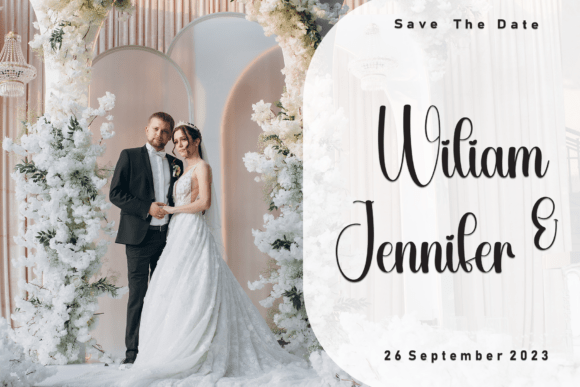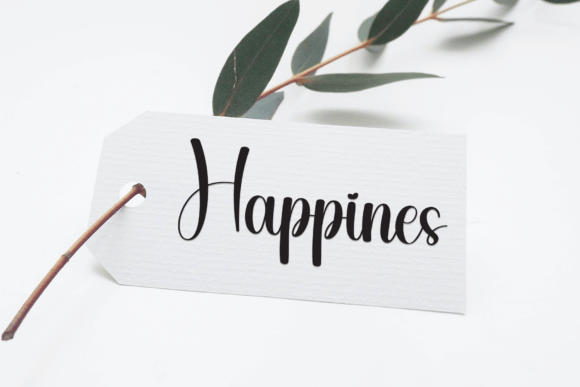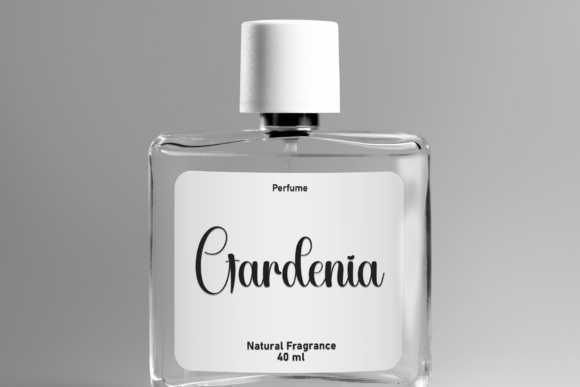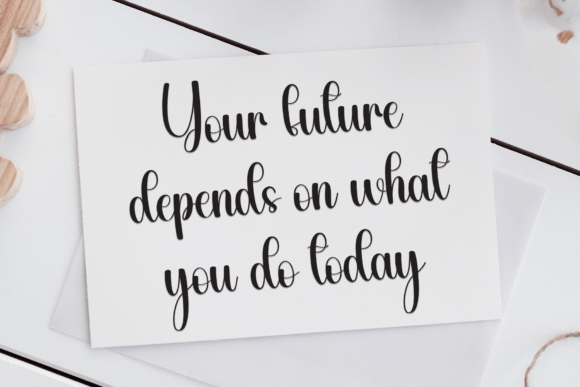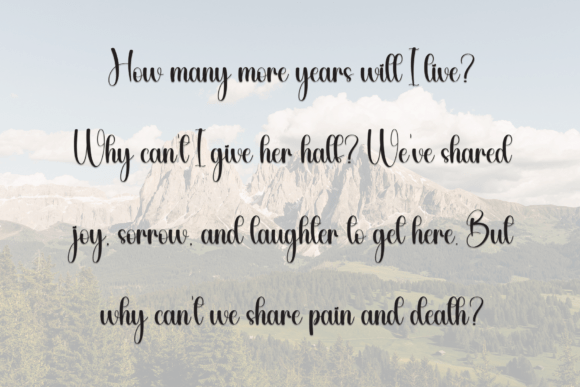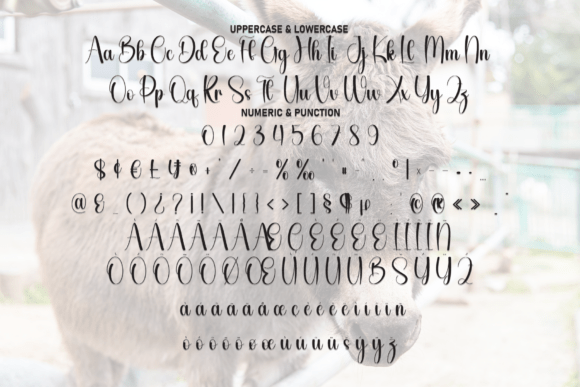
Introducing SweetScript: The Donkey Font That Brings Whimsy and Charm to Your Designs
Are you tired of using the same old fonts in your designs? Do you want to add a touch of whimsy and charm to your creative projects? Look no further than SweetScript, a hand-rendered display font that radiates warmth and friendliness. This vibrant typeface is perfect for designers and crafters who want to bring joy and fun to their work.
The Story Behind SweetScript
SweetScript is more than just a font – it’s an experience. With its delicate blend of zest and playfulness, this font is designed to bring a smile to your face and a touch of magic to your designs. Whether you’re creating joyful wedding invitations, heartwarming greeting cards, or any other design that needs a touch of cheerfulness, SweetScript is the perfect choice.
What Makes SweetScript Special?
So, what sets SweetScript apart from other fonts? Here are just a few things that make this font truly special:
- Hand-rendered with love: SweetScript is a hand-rendered font, which means that every character is carefully crafted to bring a touch of warmth and personality to your designs.
- Delicate blend of zest and playfulness: This font has the perfect balance of energy and whimsy, making it perfect for designs that need a touch of fun and playfulness.
- Perfect for joyful designs: Whether you’re creating wedding invitations, greeting cards, or any other design that needs a touch of cheerfulness, SweetScript is the perfect choice.
- Transforms common dialogues into mesmerising conversations: With SweetScript, every single character comes to life, transforming common dialogues into mesmerising conversations and simple phrases into grand festive statements.
How to Use SweetScript in Your Designs
Using SweetScript in your designs is easy. Here are a few tips to get you started:
- Pair it with complementary fonts: SweetScript looks great when paired with complementary fonts that have a more traditional or elegant feel.
- Use it for headings and titles: SweetScript is perfect for headings and titles, where its playful and whimsical feel can really shine.
- Add it to your digital or print designs: SweetScript can be used in both digital and print designs, making it perfect for a wide range of creative projects.
Make Lasting Impressions with SweetScript
In today’s competitive design landscape, it’s more important than ever to make a lasting impression on your audience. With SweetScript, you can add a touch of whimsy and charm to your designs that will set you apart from the crowd. Whether you’re a designer, crafter, or DIY enthusiast, SweetScript is the perfect font for anyone who wants to bring a little joy and fun to their creative projects.
Get Ready to Ignite Your Creativity
With SweetScript, you’ll be able to ignite your creativity and bring a new level of excitement to your designs. Whether you’re working on a wedding invitation, greeting card, or any other creative project, this font is sure to inspire you and help you create something truly special.
- Hand-rendered display font
- Delicate blend of zest and playfulness
- Perfect for joyful wedding invitations, greeting cards, and more
- Transforms common dialogues into mesmerising conversations
- Ignites creativity and makes lasting impressions